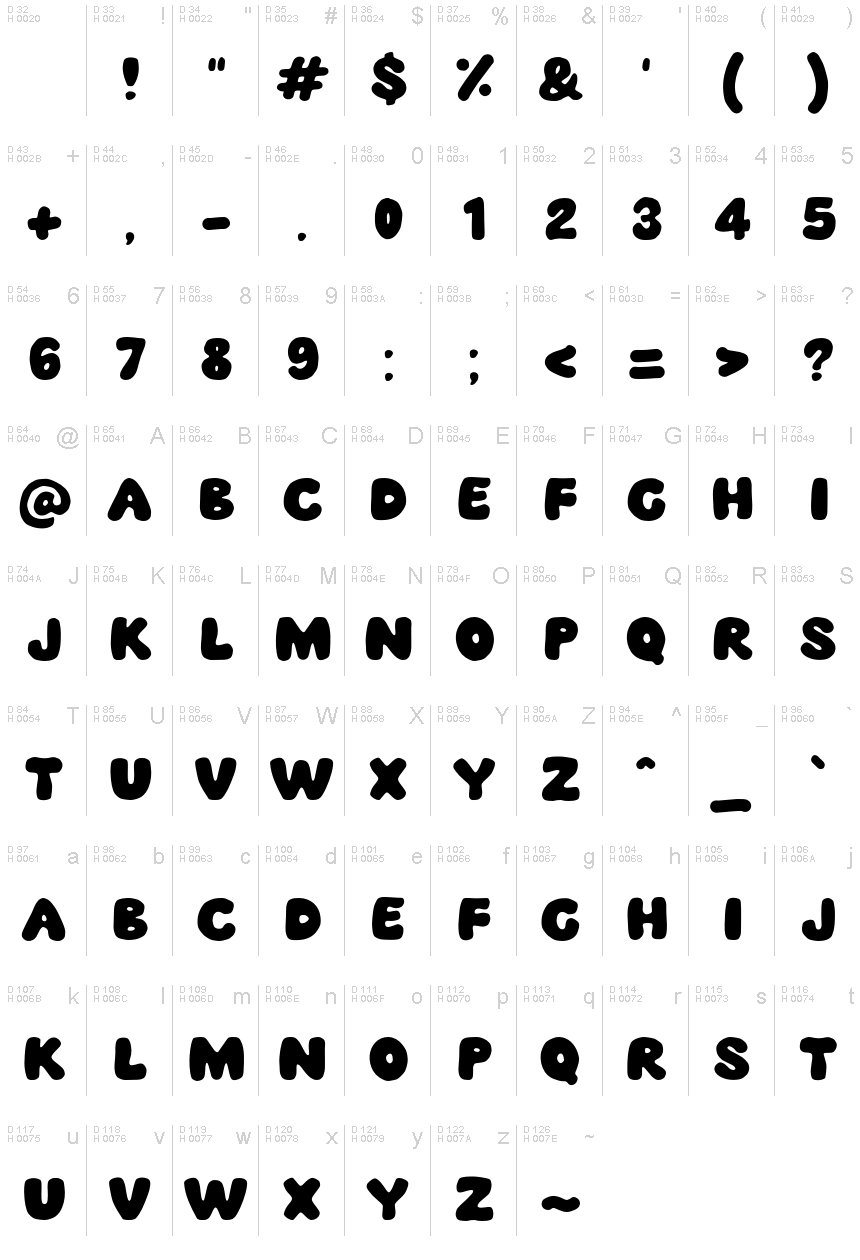
Black Magnum
Black Magnum font by MJType is a bold display typeface that captures attention with its distinctive cartoon style. Its playful and robust design makes it ideal for creative projects that need a fun, energetic look. The exaggerated shapes and bold strokes give it an eye-catching presence, perfect for headlines, posters, and logos.
This free font is available for download, offering designers the opportunity to infuse their work with a vibrant, unique personality. Black Magnum’s versatility makes it suitable for various design contexts where boldness and character are essential. Whether you're crafting standout graphics or adding flair to digital content, this font delivers impact with every letter.